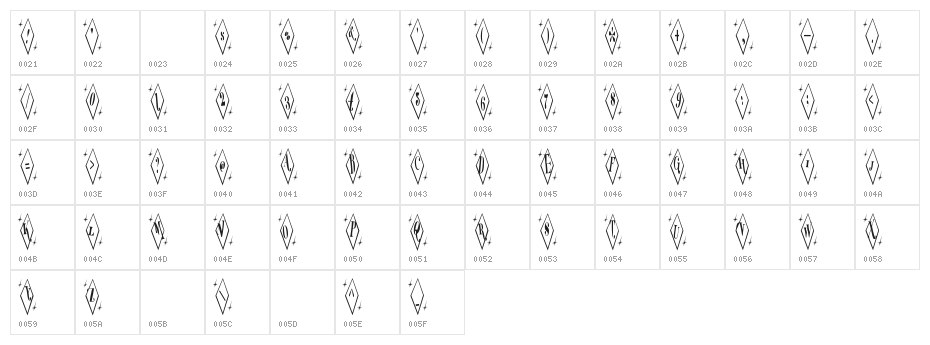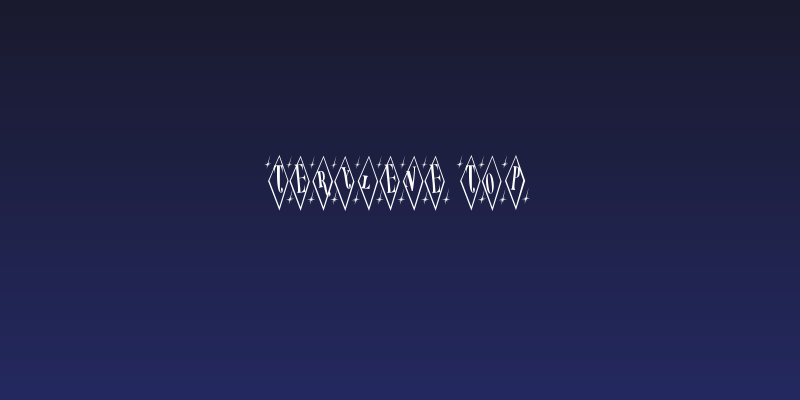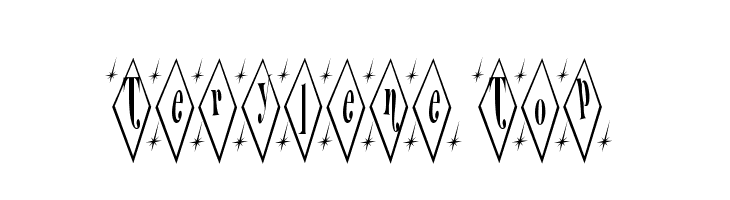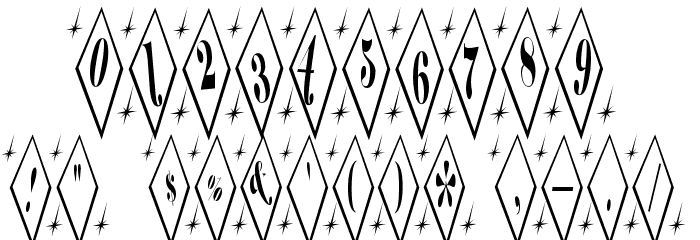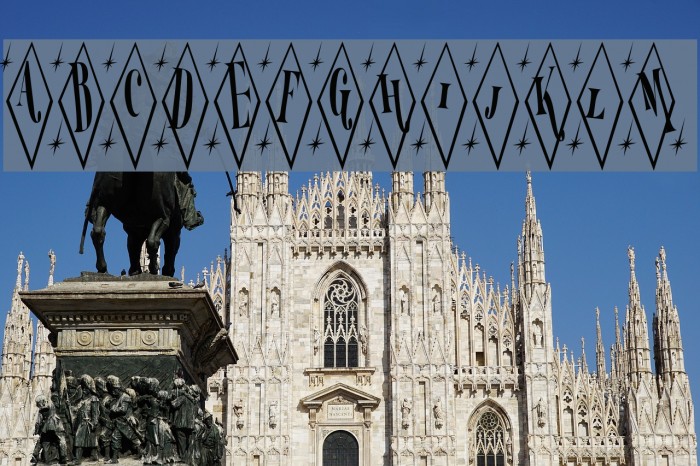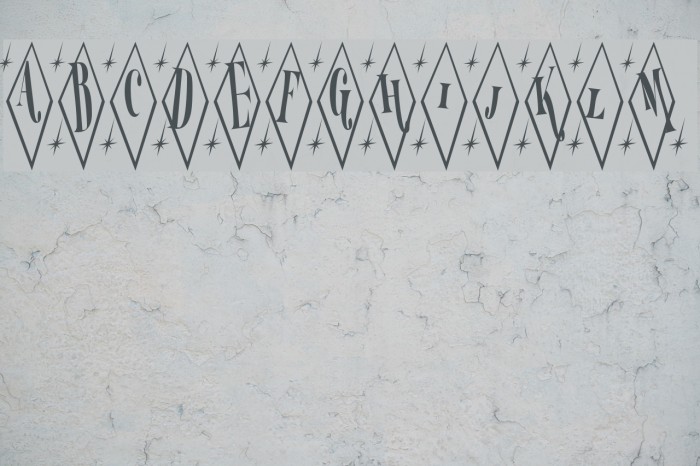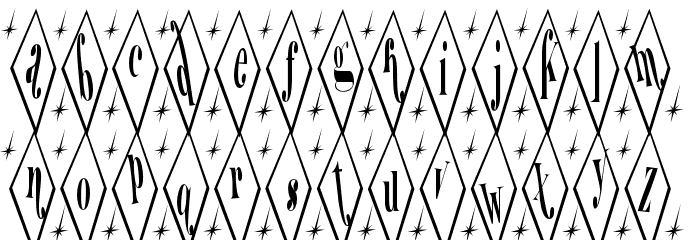
Terylene Top Font
| Область применения | Logos, Headlines, Artistic projects |
| Рекомендуемые проекты | Ideal for creative projects such as event invitations, posters, and artistic branding where a unique and decorative typeface is desired. |